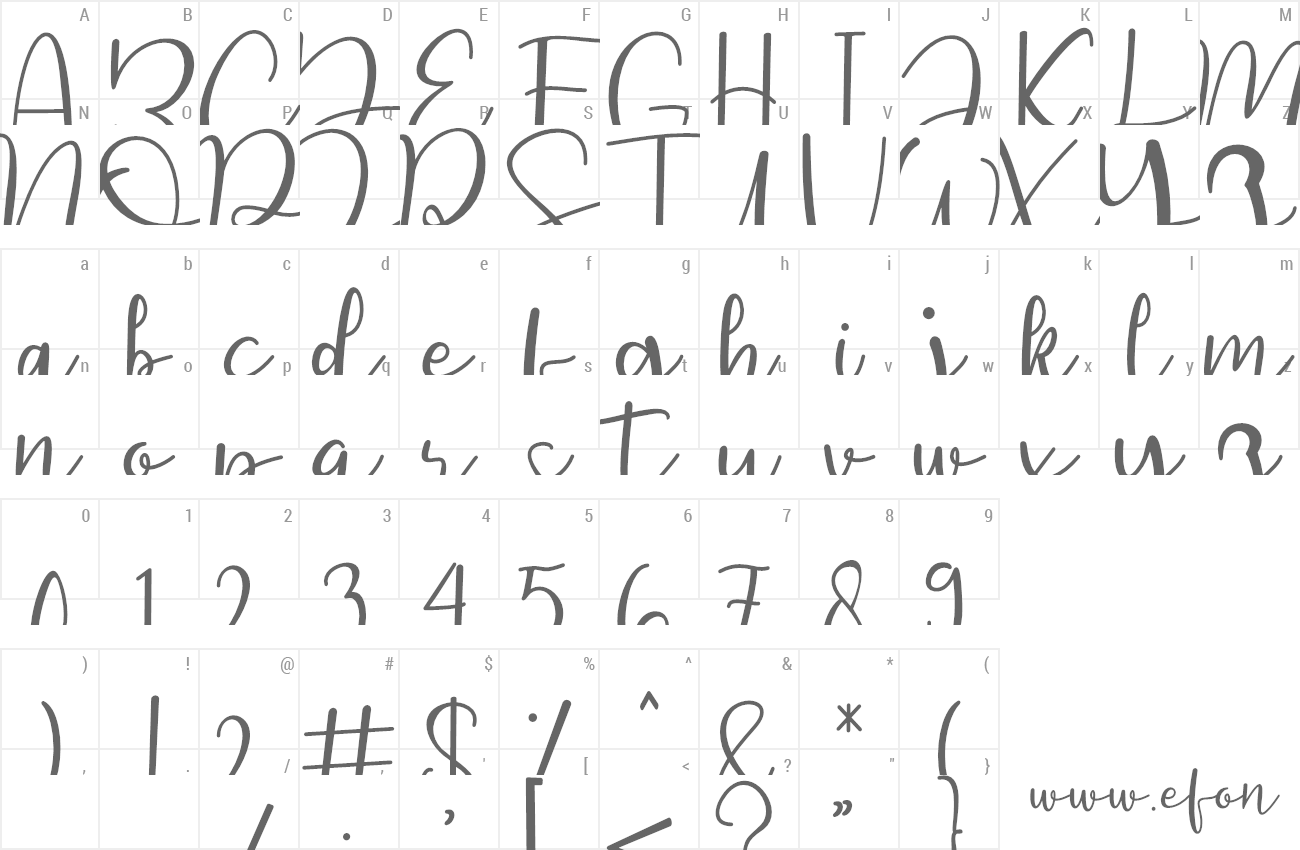
Preview and download Featrisse Font. Created by Fikry Alif in Script Handwritten styles with Free for personal use license.
Hello introduce my new product, featrisse. featrisse is a very beautiful casual script with alternate and beautiful ligature. of course I did it very long and was very careful to get good results. and this font is very good for all your needs such as: logos, mockup, design, magazine, art, quotes and others what will you do? it's very easy. - download -get OTF and TTF - and install it quickly -very easy if there are questions don't hesitate to contact me dear. warm greetings, fikryal NOTE : if you want the commercial use version ,plese visit link below https://fontbundles.net/fikryal/162287-featrisse-casual-script-font |